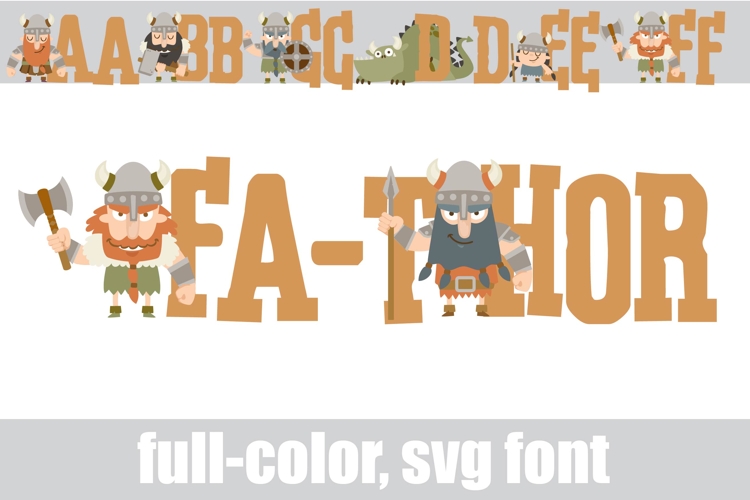
Fa-Thor Brown Color Font
This full-color, serif font features vikings on the uppercase. There is an alt case of additional colors of each letter that you can access through your system's character map.